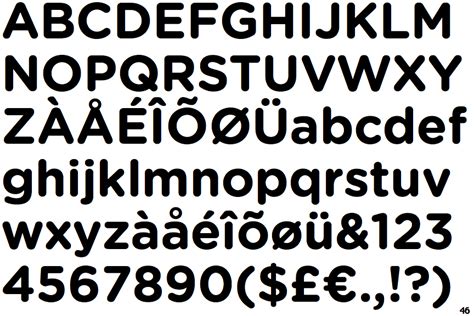
Gotham Rounded Bold Font. Web the gotham rounded family contains four weights from light to bold, each provided in roman and italic. Gotham rounded — a “technical.
Gotham rounded screensmart for the web. Web the gotham rounded family contains four weights from light to bold, each provided in roman and italic. Gotham rounded — a “technical.
Web the gotham rounded family contains four weights from light to bold, each provided in roman and italic. Web the gotham rounded family contains four weights from light to bold, each provided in roman and italic. Gotham rounded screensmart for the web. Gotham rounded — a “technical.